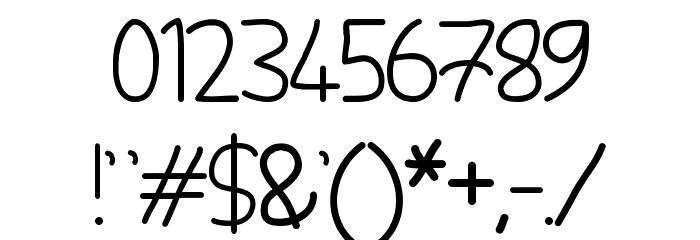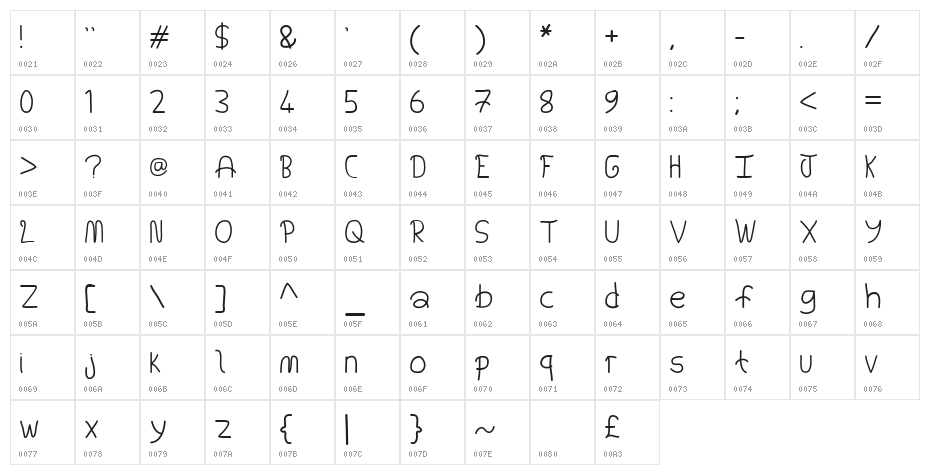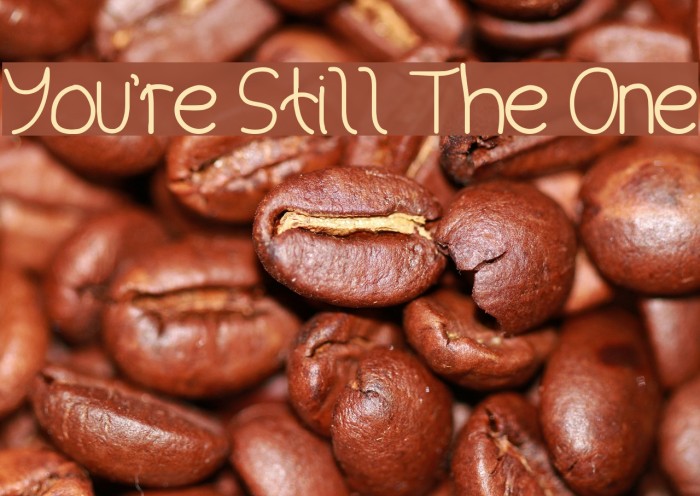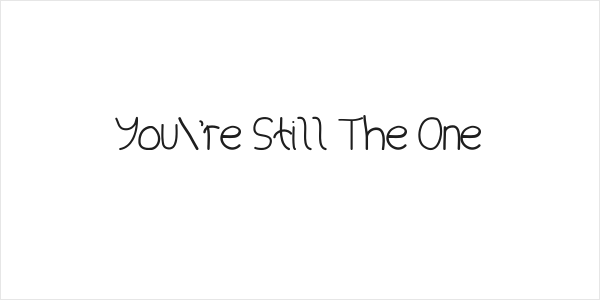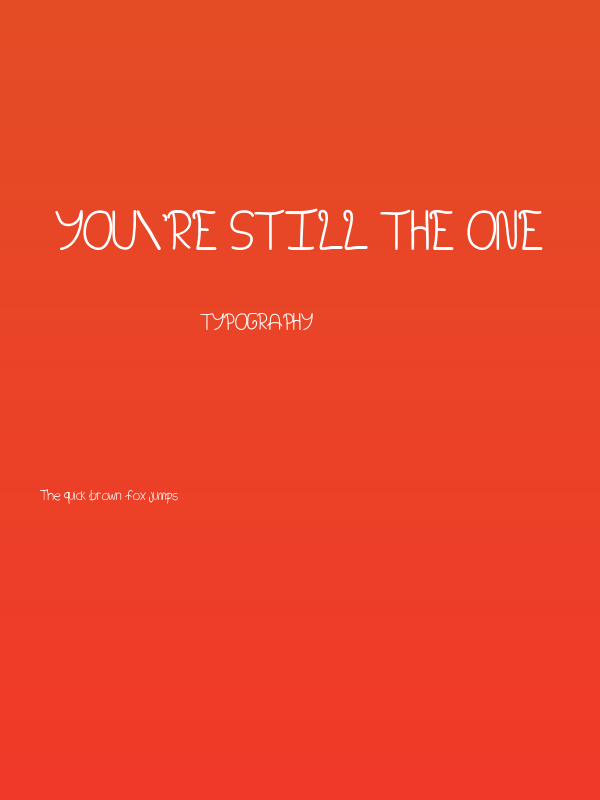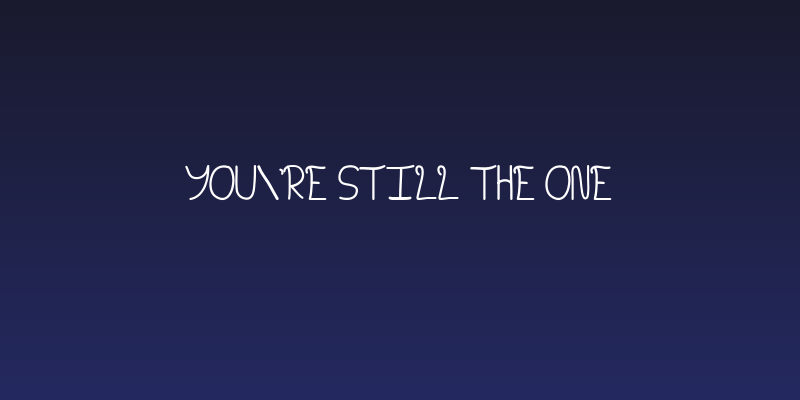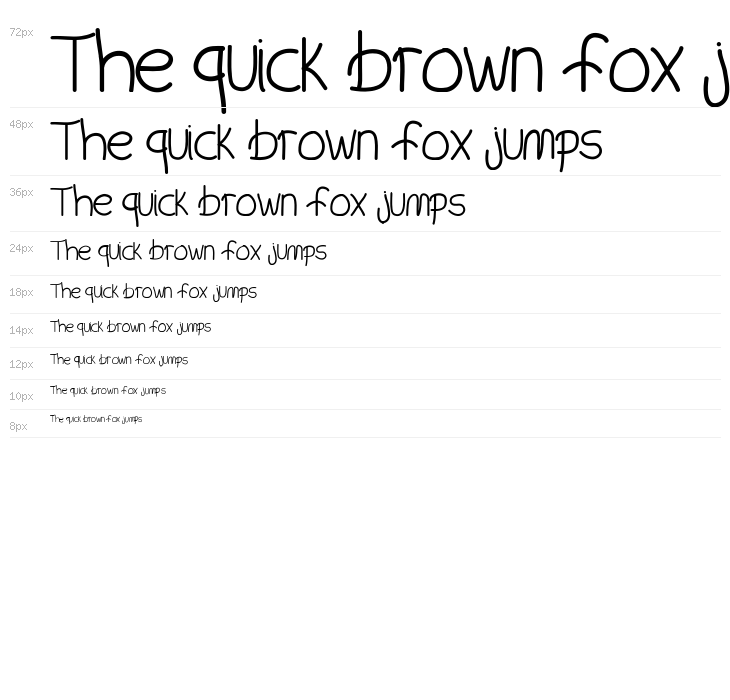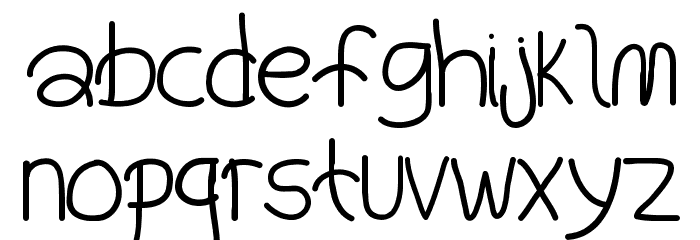
You're Still The One Font
You're Still The One Description
This font features a playful and casual handwritten style, characterized by its smooth, rounded edges and slightly irregular letterforms. The uppercase letters are tall and narrow, while the lowercase letters maintain a consistent height, contributing to a cohesive and friendly appearance. The numerals are clear and easy to read, matching the overall style of the alphabet. Special characters are well-integrated, maintaining the same playful aesthetic. The font's informal and approachable design makes it suitable for projects that require a personal touch.
| Use Case | Headlines, Informal text, Personal projects |
| Proposed Projects | Ideal for greeting cards, children's books, casual invitations, and personal branding. |